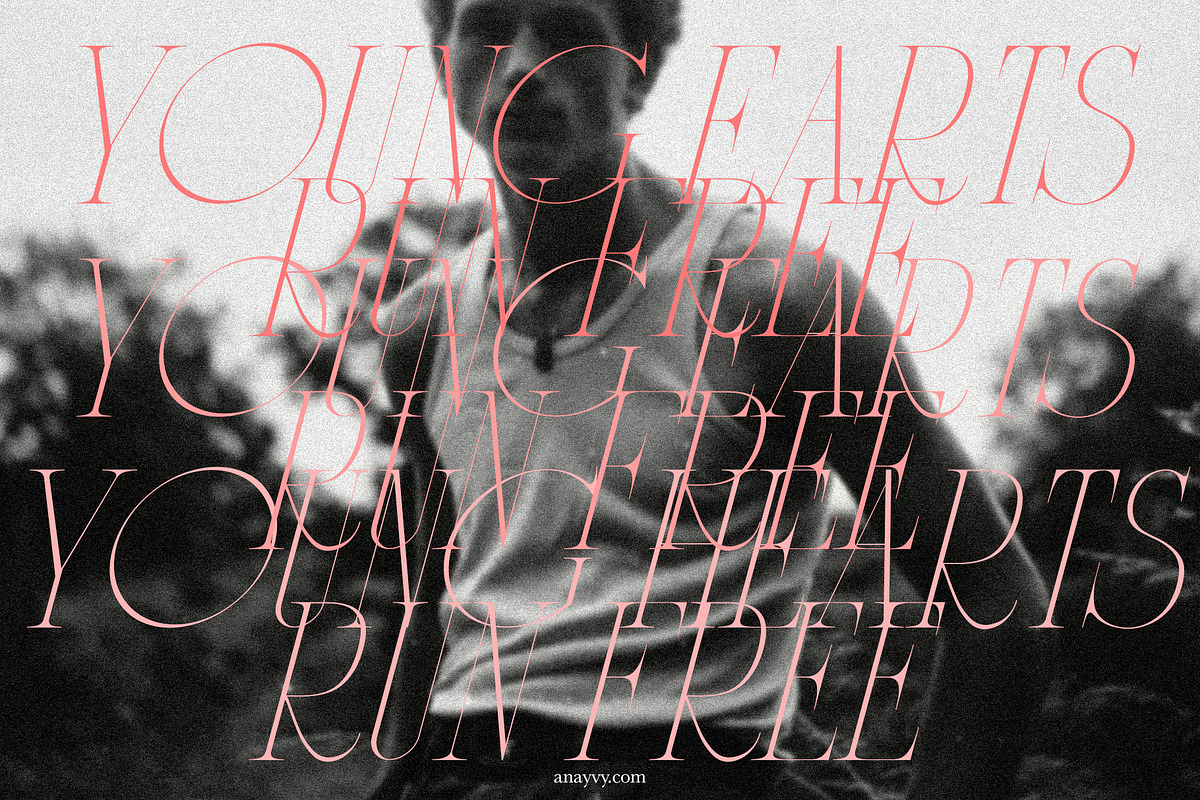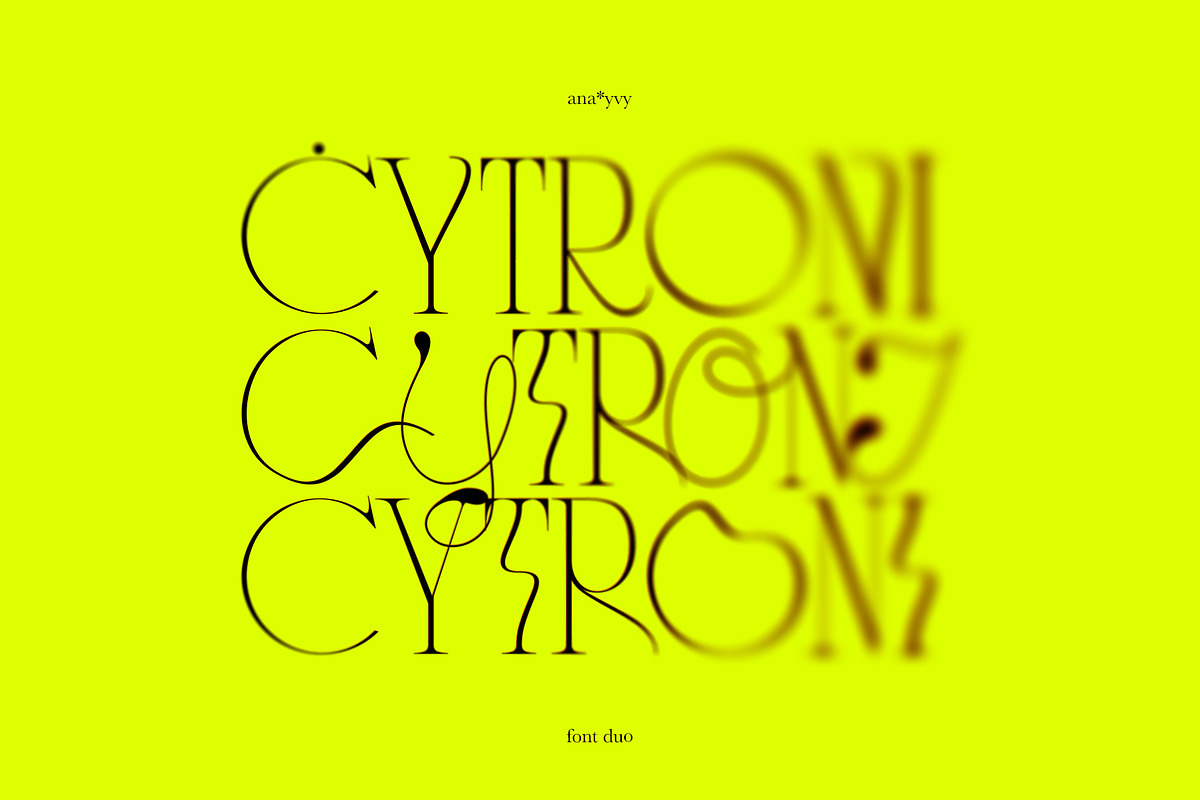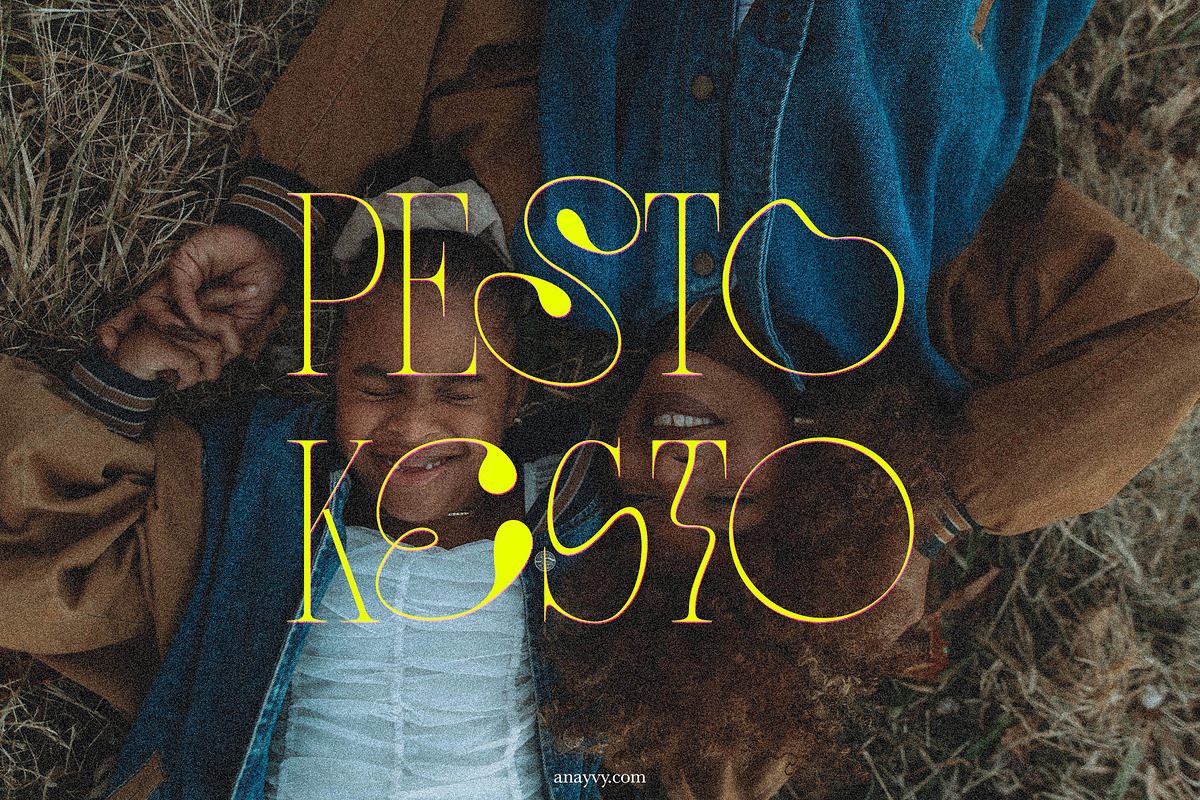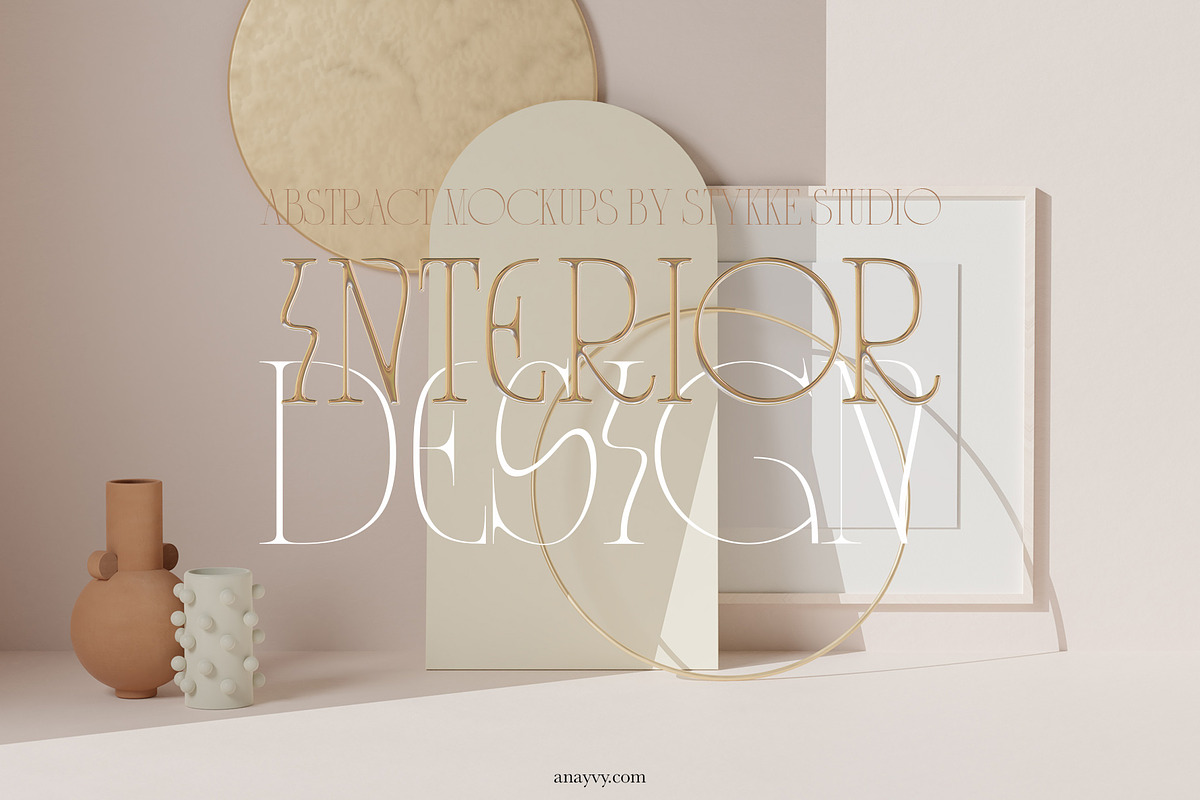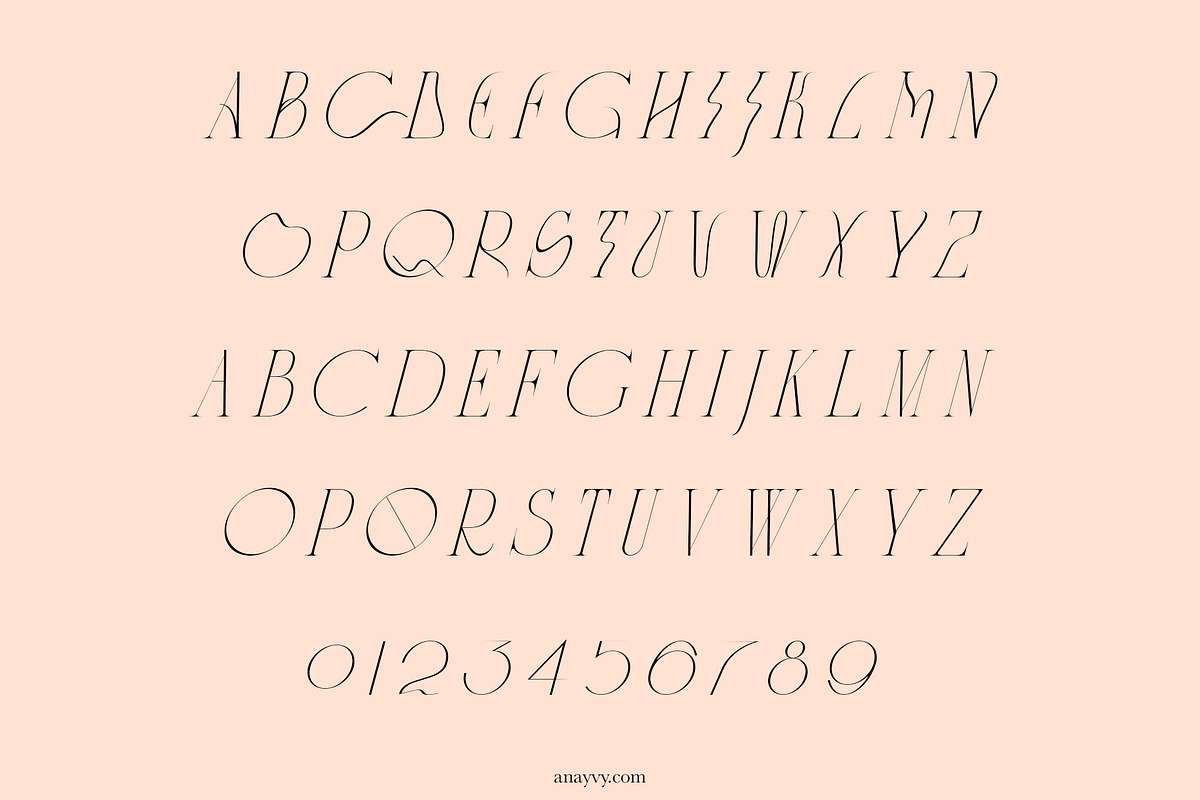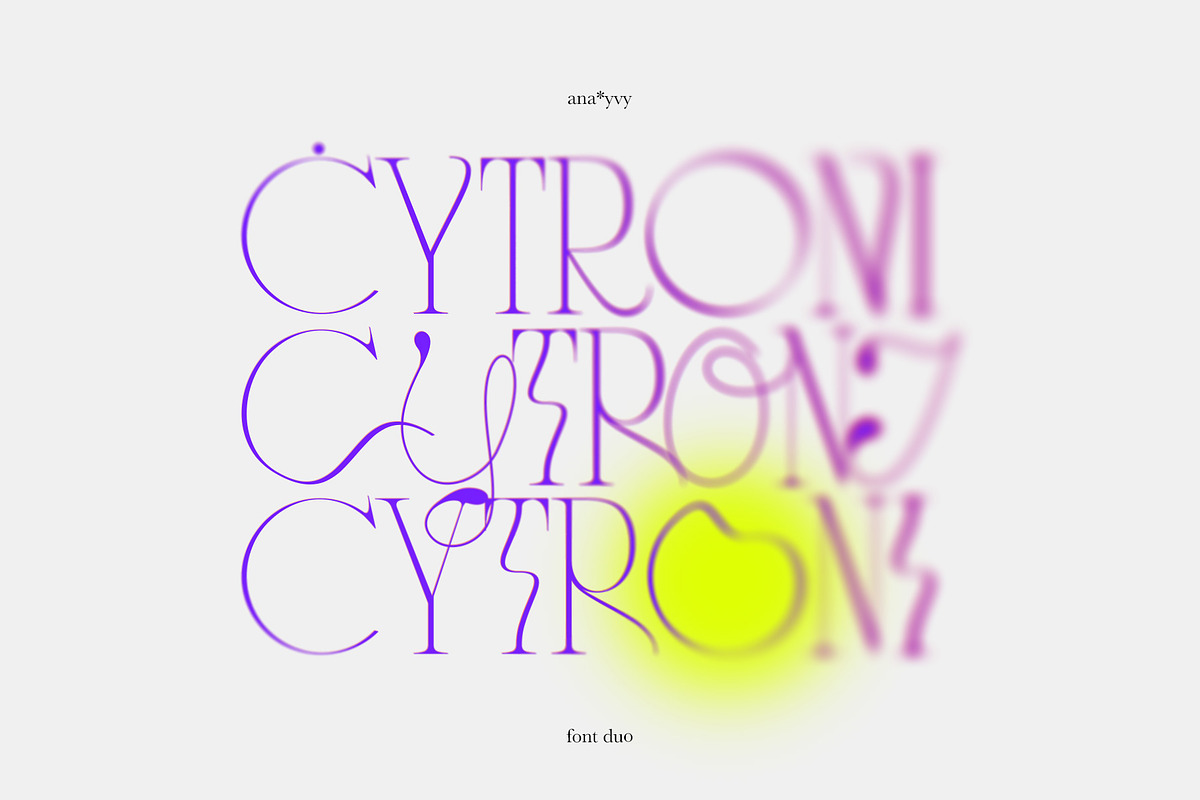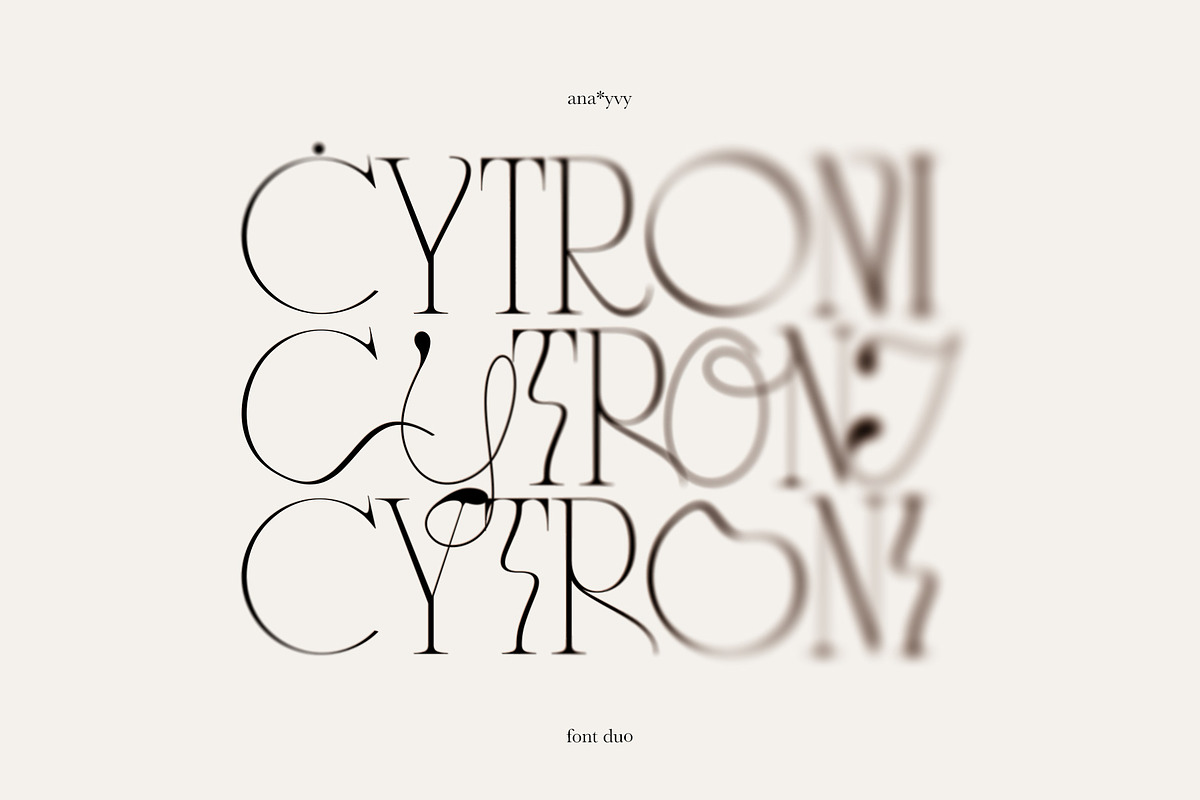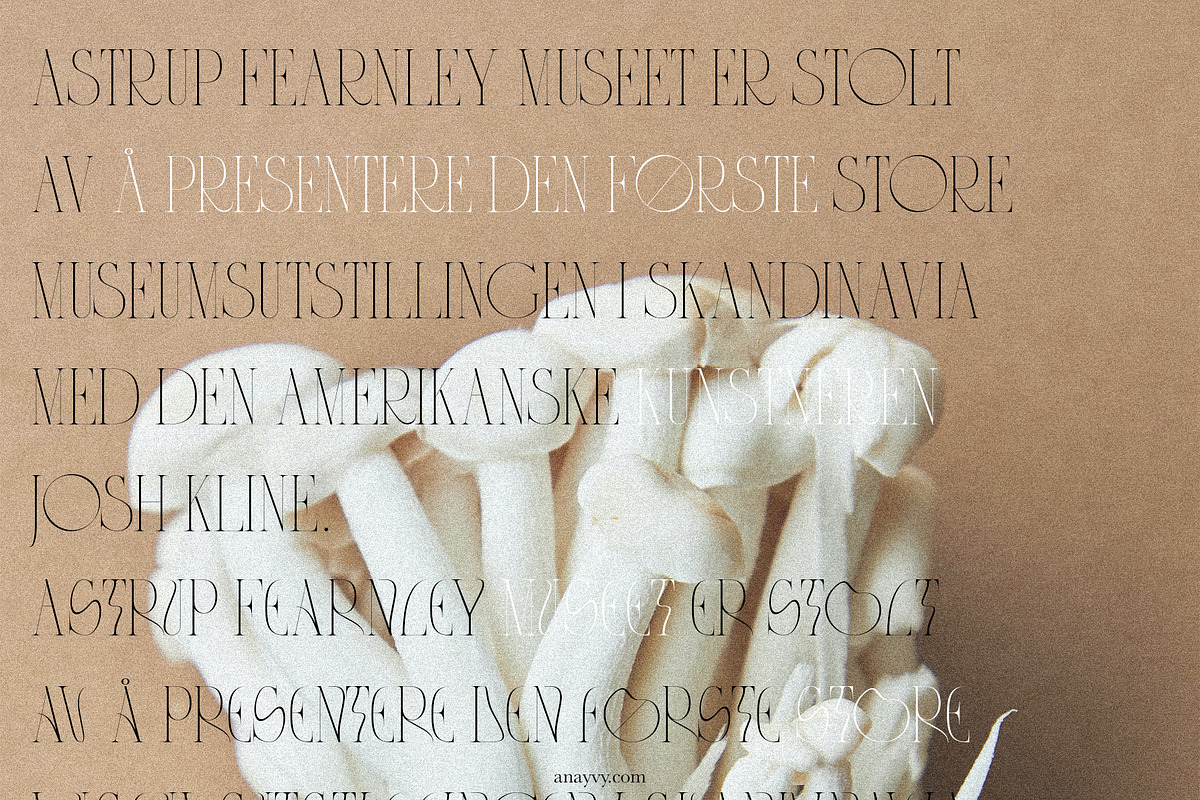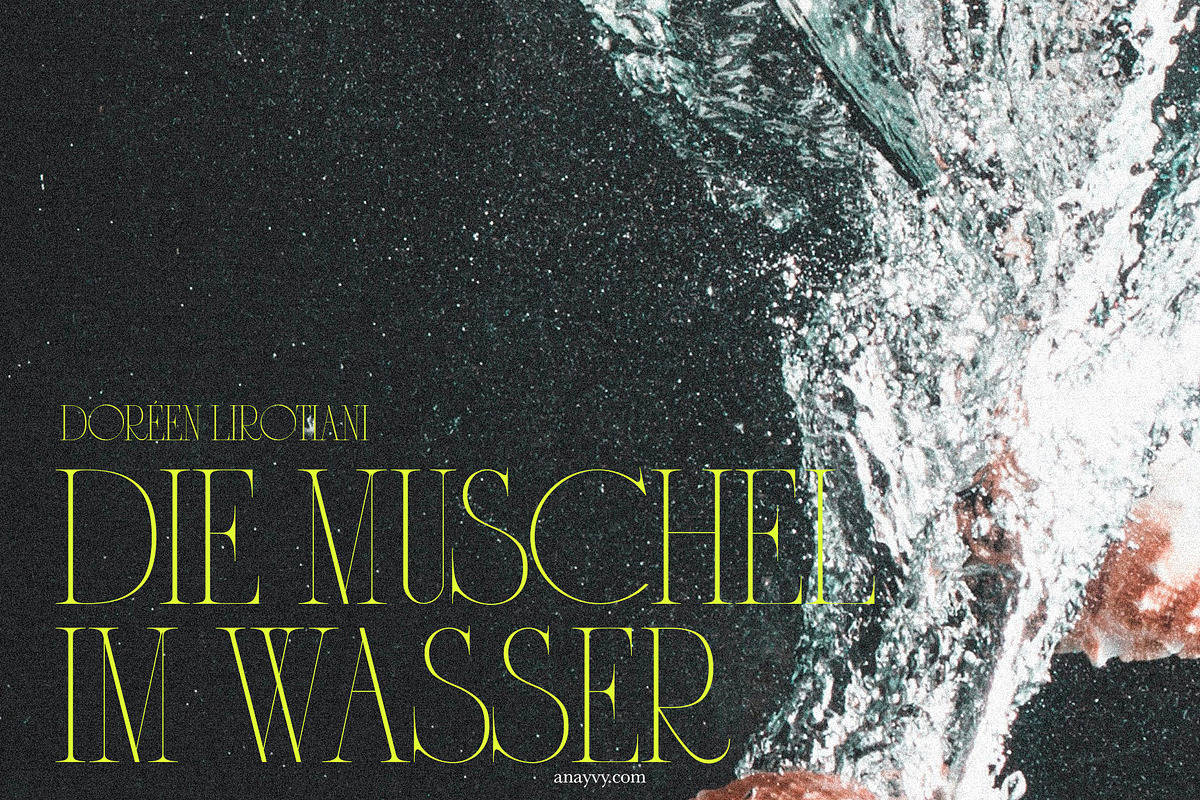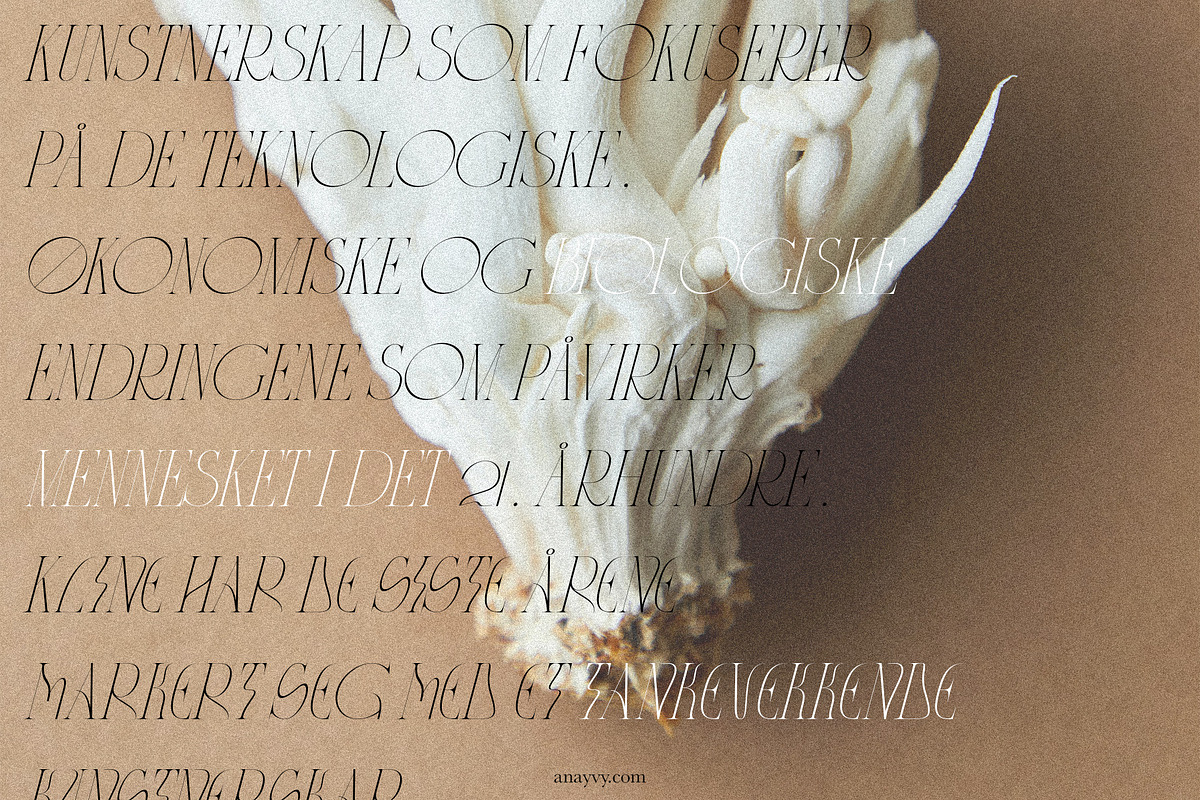
CYTRONI Modern Mix Font Duo
What's better than one font? A font duo! Say hello to "CYTRONI" - a stylish, elegant and very versatile serif font family with curvy glitch parts in combination with Lepuna - a Hand-drawn and weird thin handwriting font. No matter if you go the elegant route and use Cytroni on her own or if you combine the fresh and modern alternates to get a cool look - this font dup is a lot of fun!
What's behind the alternates? The lower case are the wobbly fun letters, the uppercase are the sophisticated and grown up letters - works perfect on it's own or mixed together!